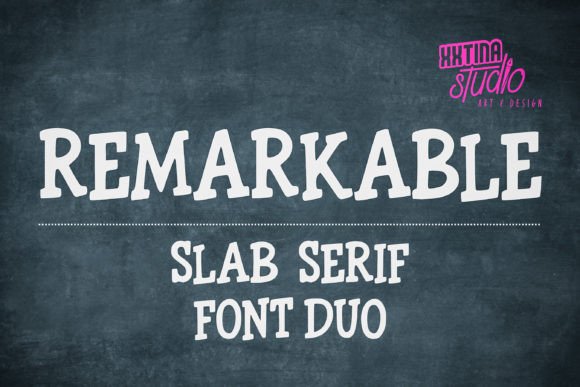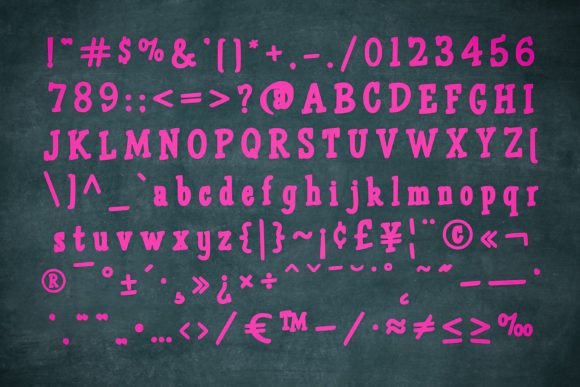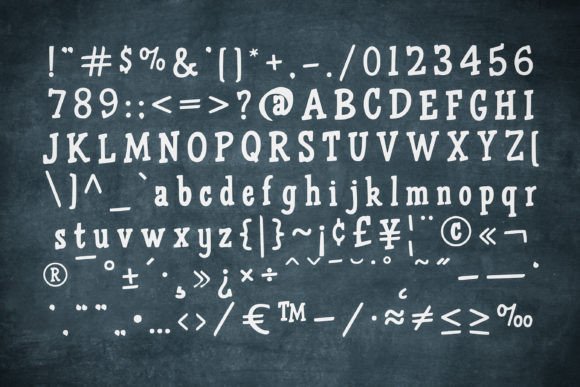
Remarkable
Remarkable: A Clean and Neat Slab Serif Font
Remarkable is a clean and neat slab serif font. First of all, its natural and unique style makes it a great fit for many different designs. Best of all, this versatile typeface has no limits – you can use your imagination to create anything!
Key Features of Remarkable
• Clean Look: Shows off a clear and tidy style that’s easy to read.
• Neat Design: Has well-arranged and balanced letters.
• Natural Feel: Brings a friendly and easy-going look to designs.
• Fits Many Uses: Works well in different types of projects.
Best Uses for Remarkable
Thanks to its unique style, Remarkable works especially well for:
When you use Remarkable in your designs, keep these tips in mind:
• Try it for headlines or body text to show off its clean style.
• Test different sizes to bring out the font’s natural look.
• Mix it with other fonts to create interesting designs.
• Let your creativity guide you to find new ways to use it.
First of all, Remarkable is a great choice for designers who want a clean and neat slab serif font. Additionally, its natural and unique style makes it perfect for many different kinds of designs. Whether you’re working on business materials, creating online content, or making print projects, Remarkable offers both clarity and flexibility.
Furthermore, Remarkable’s special design helps it stand out in many different settings where you need a clean and professional look. For example, from business materials to creative projects, this font can make your designs better with its neat style. Moreover, its natural yet polished look works well in projects that need to look both professional and friendly.
In conclusion, Remarkable truly lives up to its name by offering endless design possibilities. Its ability to work well in different projects shows how flexible it can be. Therefore, if you want to add a touch of clean style to your work, Remarkable can make any design better. Finally, it’s perfect for designers who want to let their imagination run free across many different kinds of creative projects.